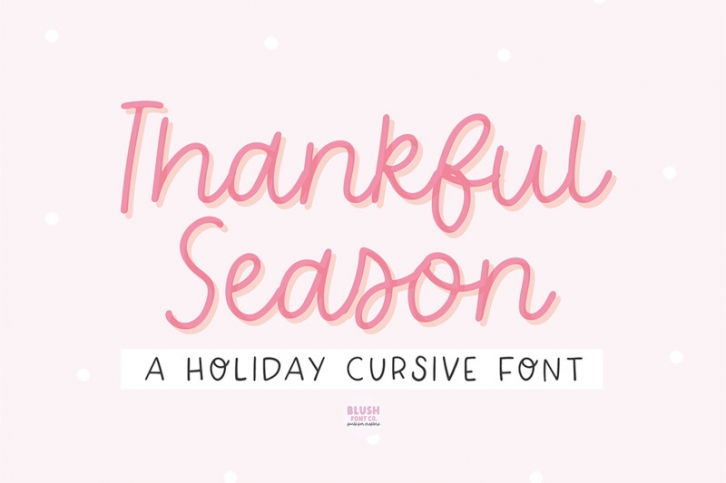
"Thankful Season" sweet cursive handwritten font.
Thankful Season is a delicate handwriting font.
Font includes: Upper and lowercase glyphs, numbers, and basic punctuation.